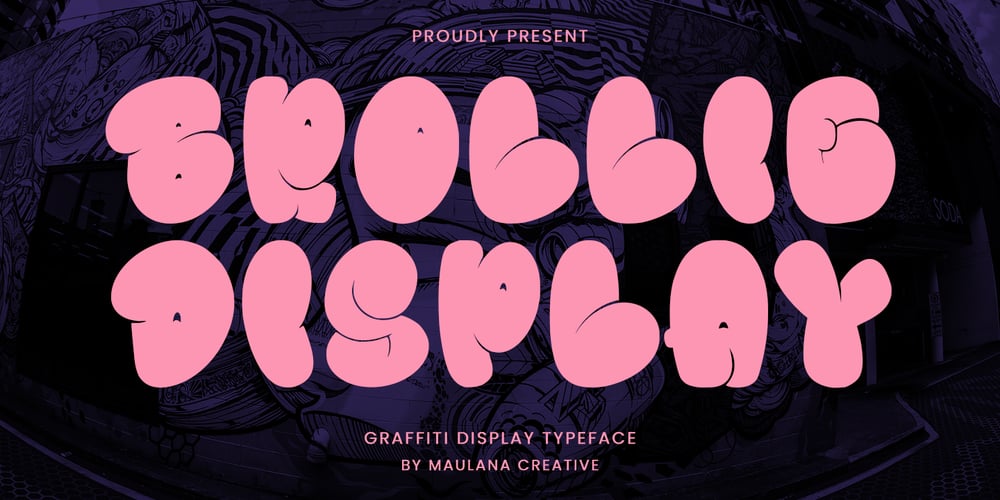
MC Brollie
MC Brollie font
MC Brollie Font Family was designed by Gilang Maulana and published by Maulana Creative. MC Brollie contains 1 styles and family package options. Brollie graffiti display typeface valentine font. With sharp bold stroke, fun character with a bit of ligatures and alternates. To give you an extra creative work. Brollie graffiti display typeface valentine font support multilingual more than 100+ language. This font is good for logo design, Social media, Movie Titles, Books Titles, a short text even a long text letter and good for your secondary text font with script or serif. Make a stunning work with Brollie graffiti display typeface. Cheers,Maulana Creative